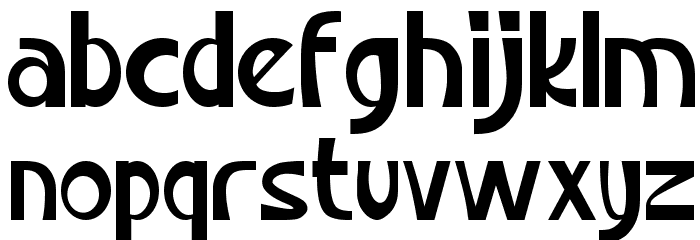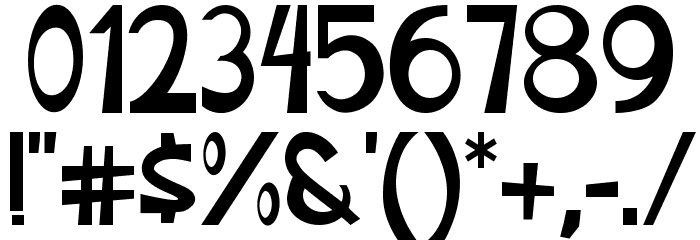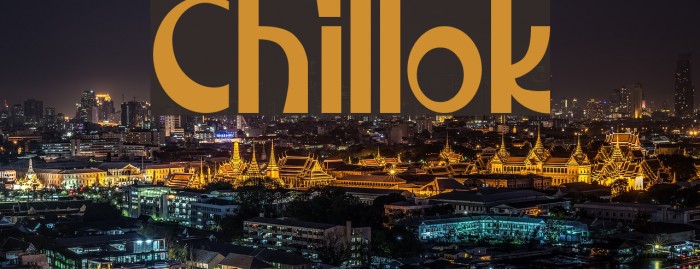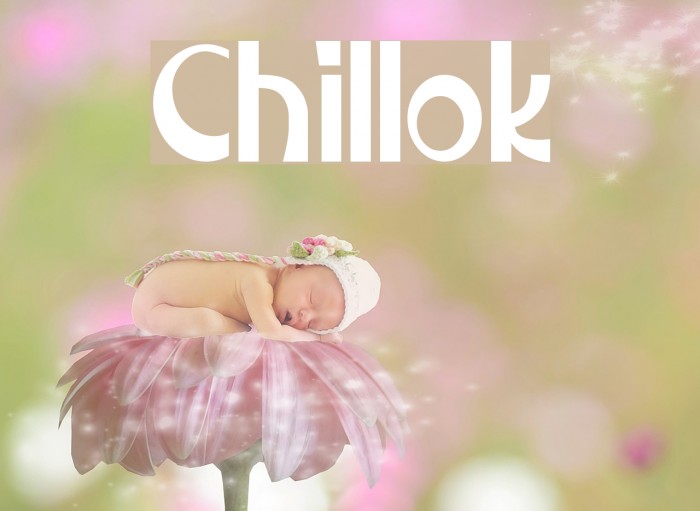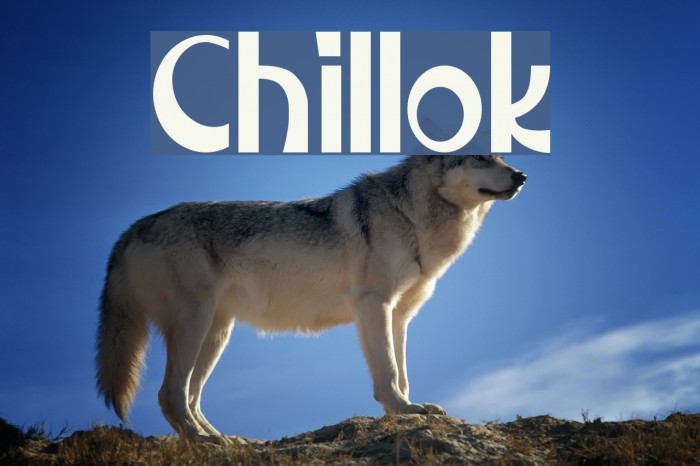
Chillok Font
This font features a bold and playful design with a modern twist. The characters are slightly condensed, giving it a compact appearance while maintaining readability. The strokes are thick and consistent, providing a strong visual impact. The unique curves and angles add a touch of whimsy, making it suitable for creative and informal projects. The uppercase letters are particularly striking, with a distinct geometric influence, while the lowercase letters maintain a smooth and flowing style. The numerals and special characters are well-integrated, ensuring versatility across different uses.
A bold, playful font with a modern and slightly condensed style.
- Proposed Projects: Ideal for posters, branding, packaging, and any creative project that requires a bold statement.